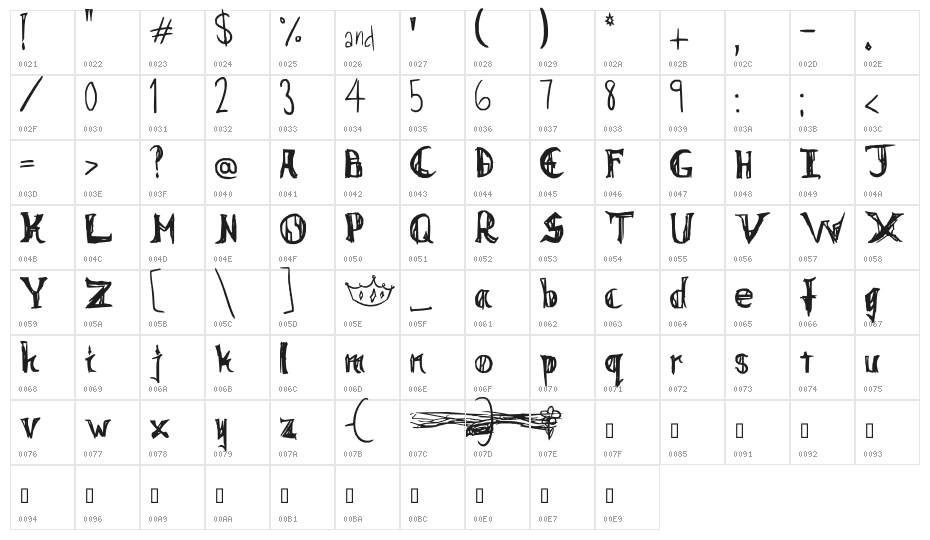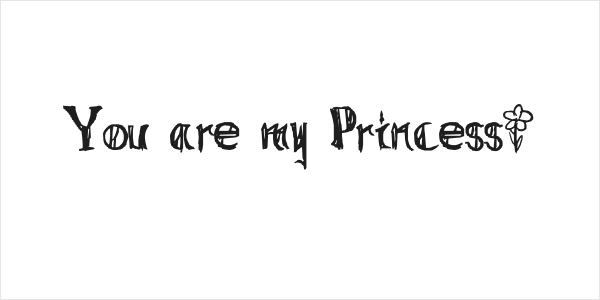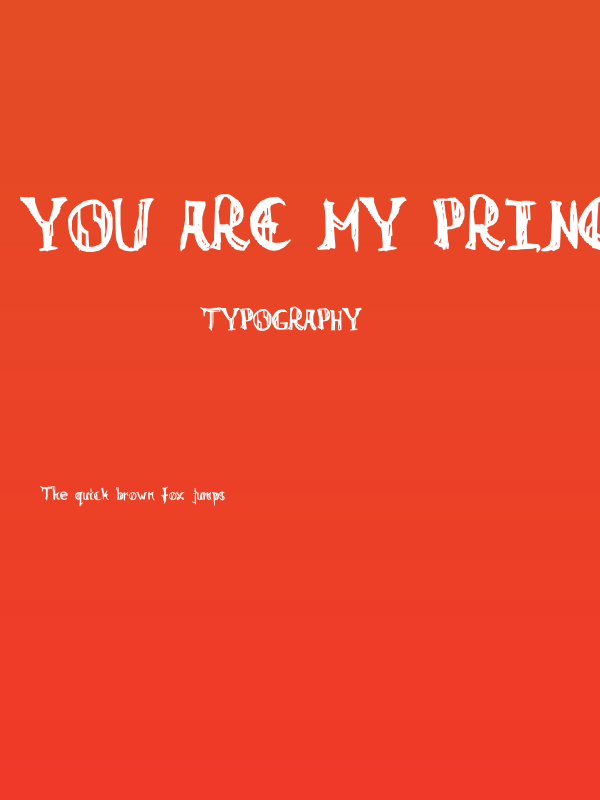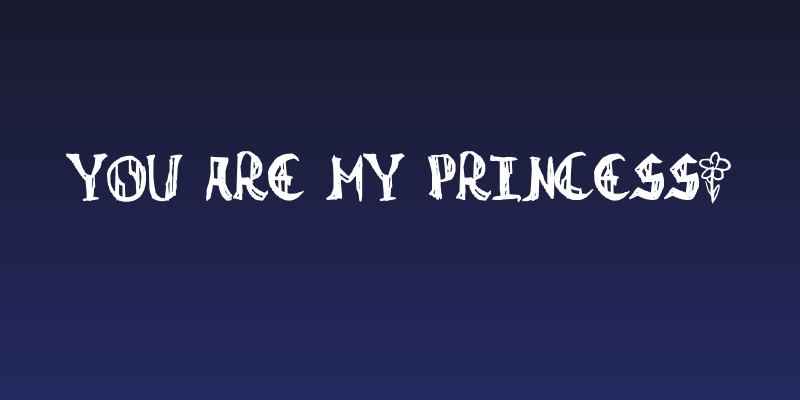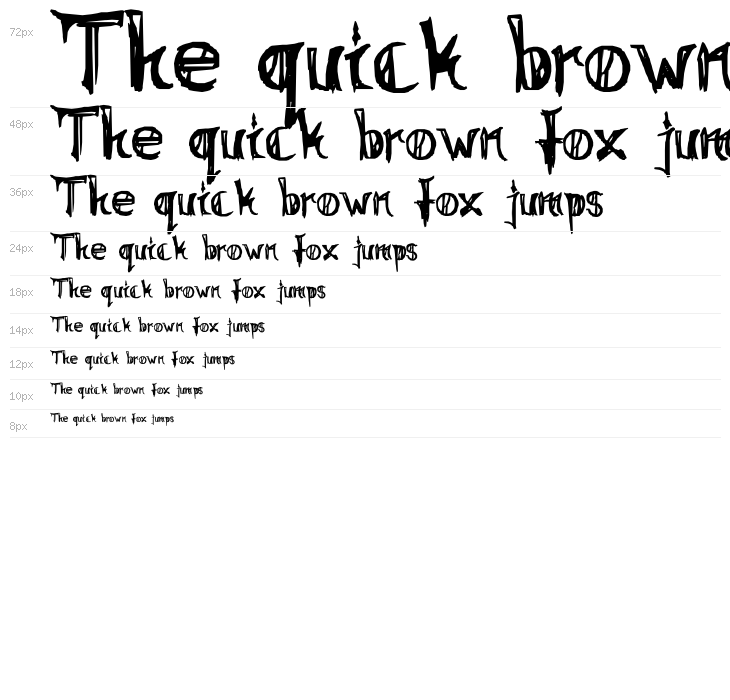
You are my Princess~ Font
You are my Princess~ Description
This font features a bold, hand-drawn style with a rough, textured appearance. The letters have an irregular, jagged edge, giving them a dynamic and energetic feel. The uppercase and lowercase letters maintain a consistent style, with exaggerated strokes and a slightly chaotic arrangement. Numbers and special characters follow the same aesthetic, adding to the overall edgy and artistic vibe. This font is perfect for projects that require a touch of rebellion or creativity, such as album covers, posters, or branding for unconventional products.
| Proposed Projects | Ideal for album covers, posters, edgy branding, and artistic projects. |